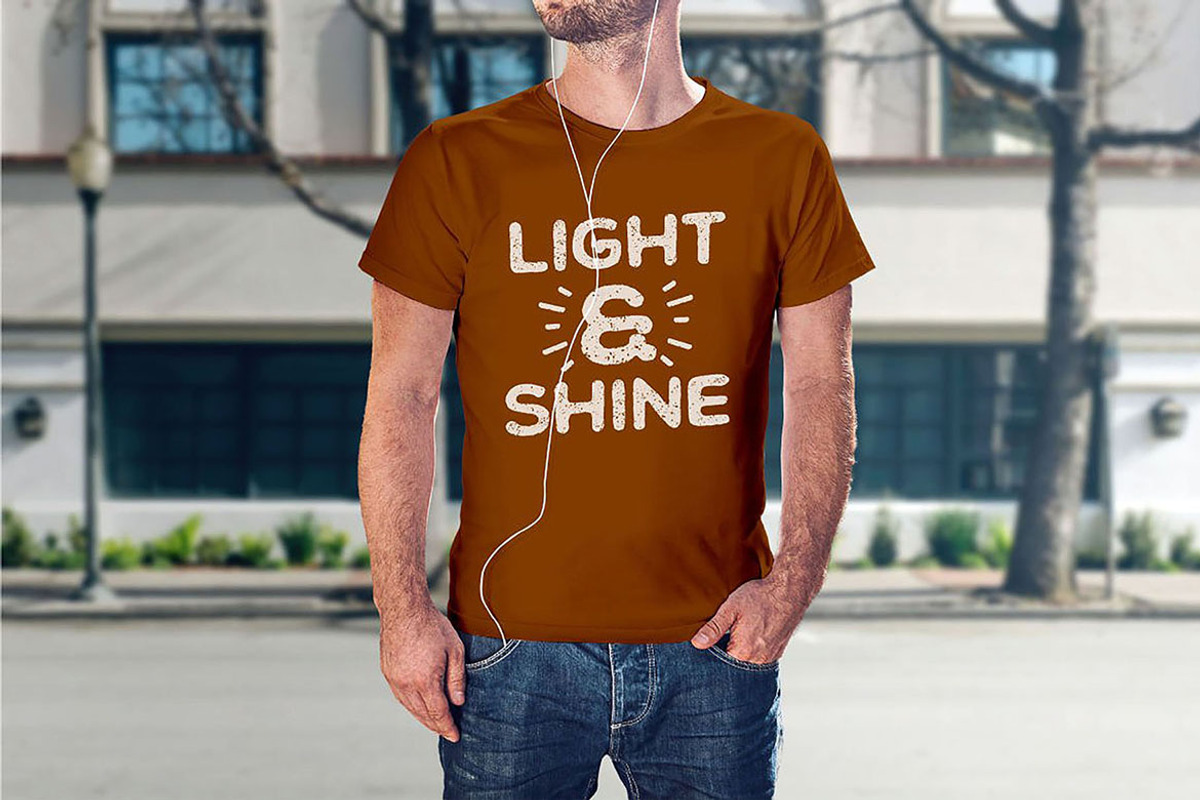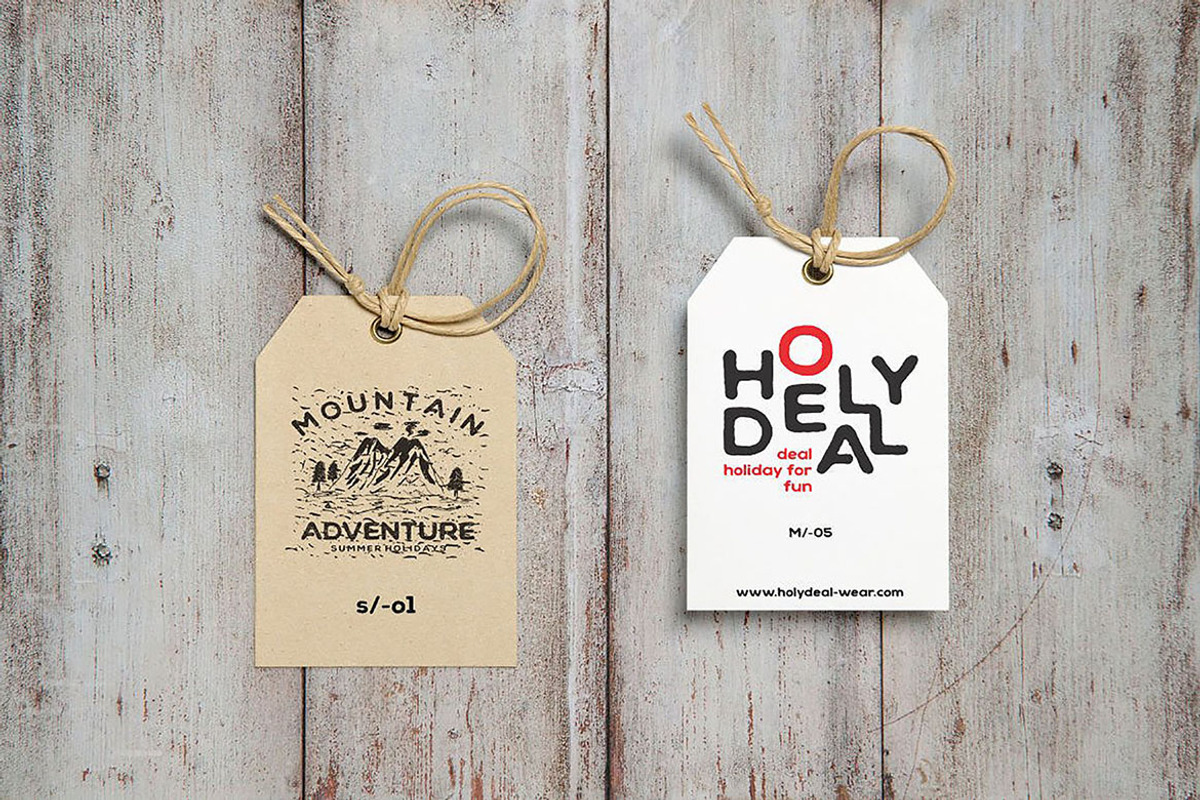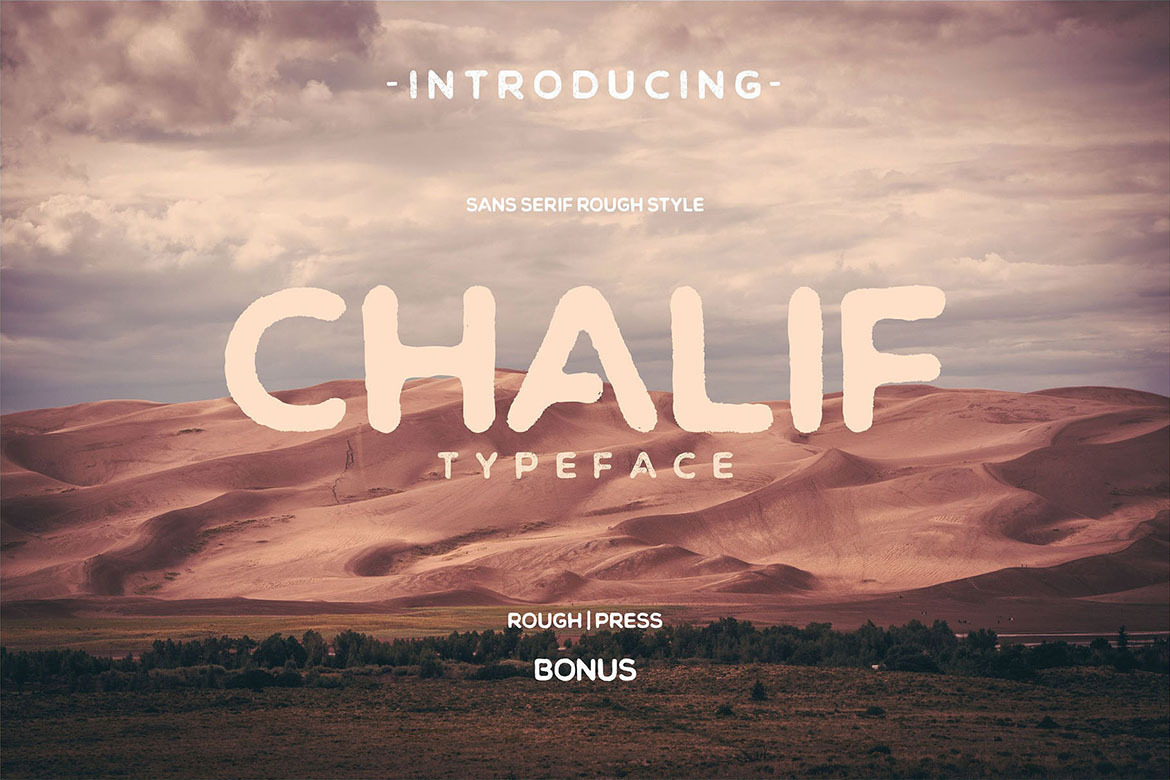
Chalif Typeface
Chalif typeface is sans serif font with a hand drawing style. Two alternative style font selection rough and press. Very suitable for your design, clothing design, vintage logos, labels, posters, packaging design and other designs. Include bonus Handrawn Logo.